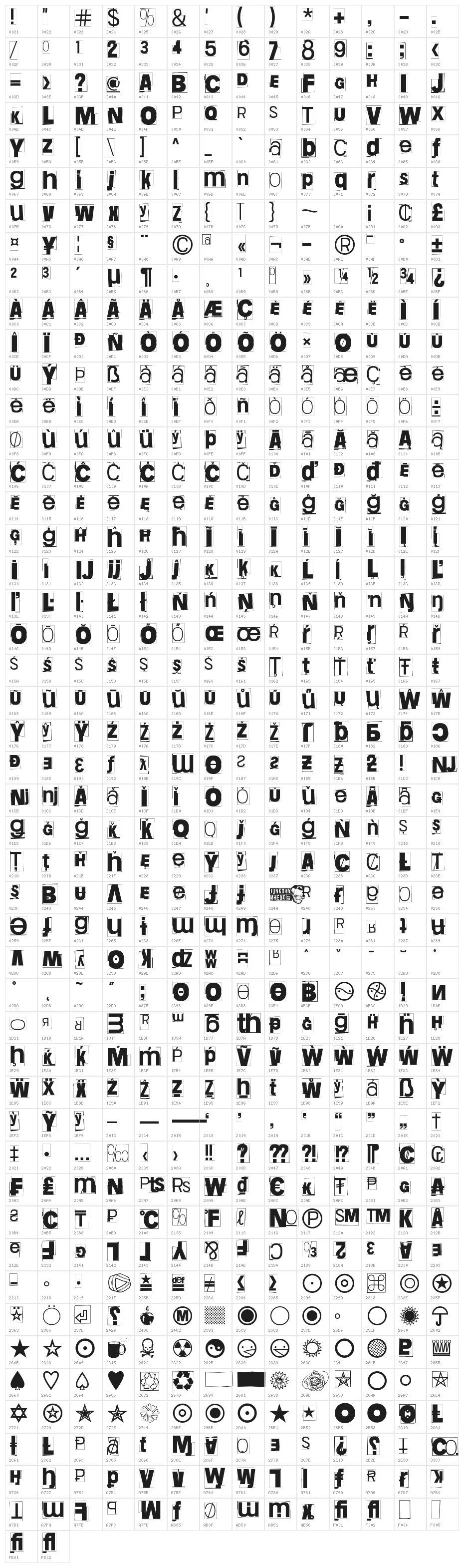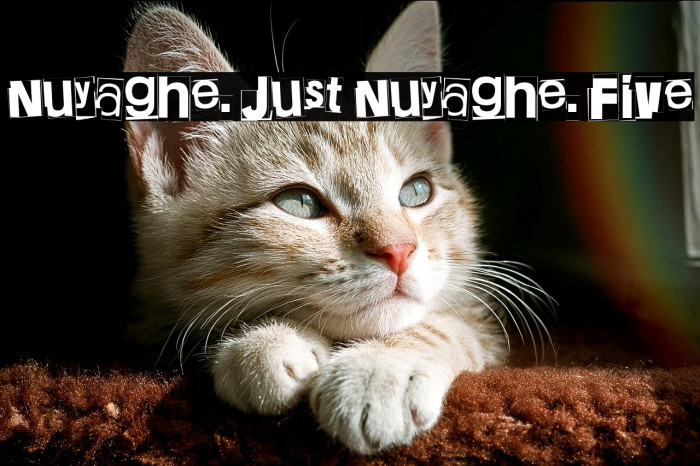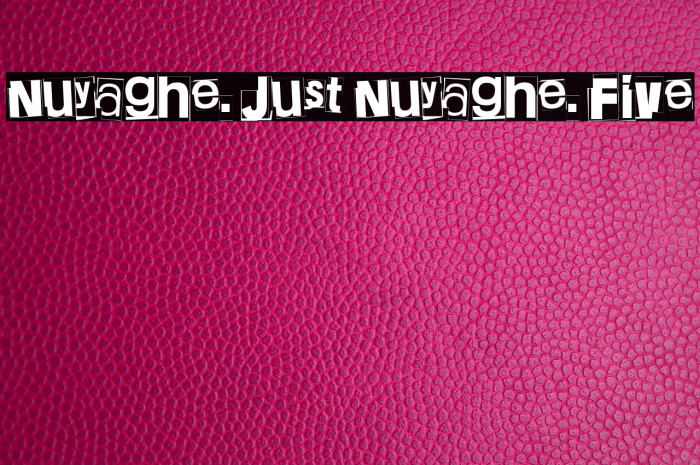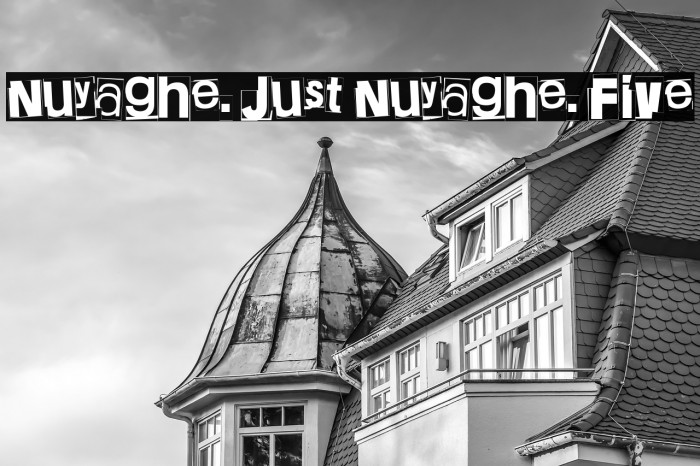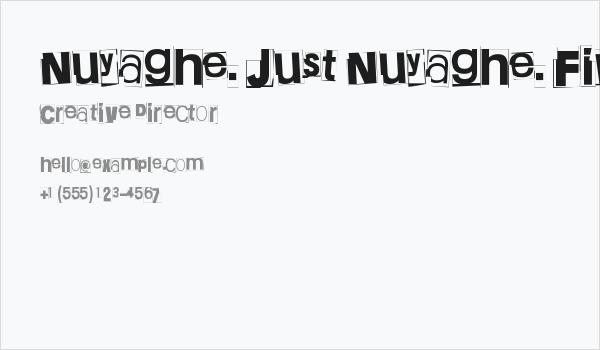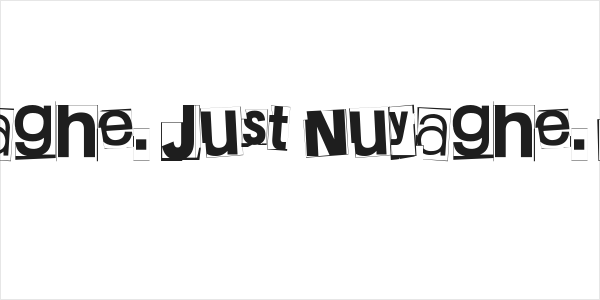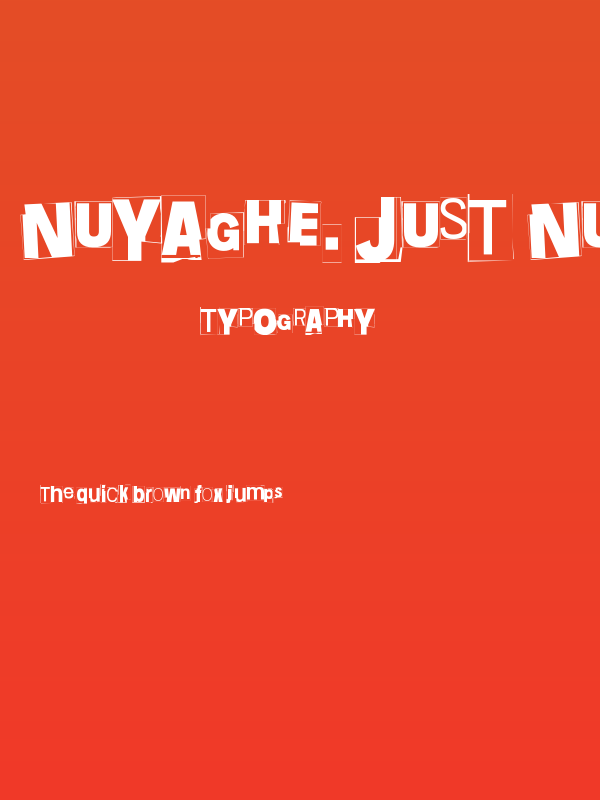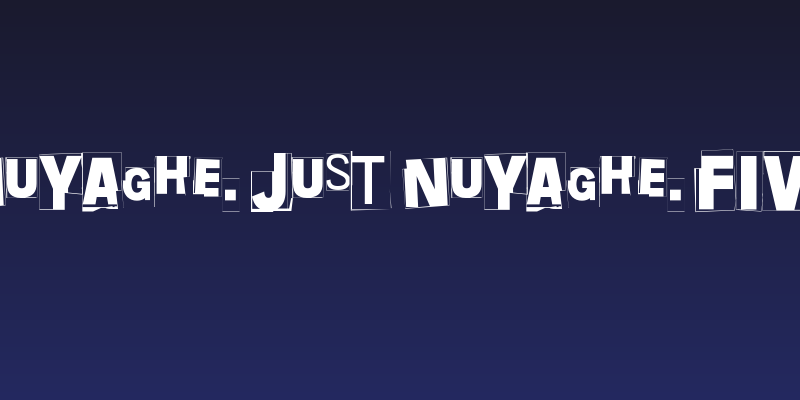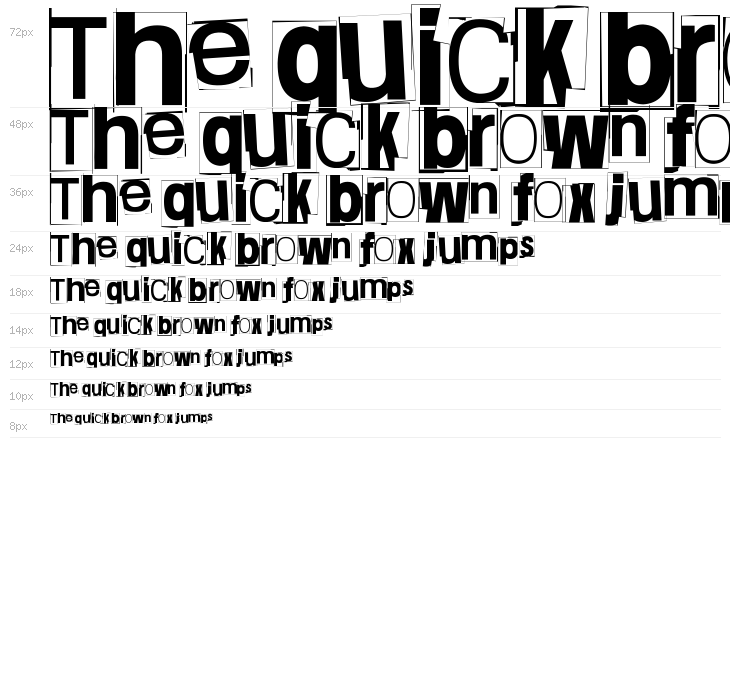
Nuyaghe. Just Nuyaghe. Five Font
Nuyaghe. Just Nuyaghe. Five Description
This font exhibits a playful and eclectic style, reminiscent of cut-out letters from magazines or newspapers. Each character is uniquely styled, with varying thicknesses and orientations, creating a dynamic and eye-catching effect. The uppercase and lowercase letters maintain a bold presence, with some characters appearing slightly tilted or offset, adding to the whimsical nature. Numbers and special characters follow the same eclectic design, ensuring consistency across the font. The overall appearance is bold and attention-grabbing, making it ideal for projects that require a distinctive and unconventional look.
| Proposed Projects | Ideal for creative projects such as posters, album covers, or any design requiring a unique, standout font. |